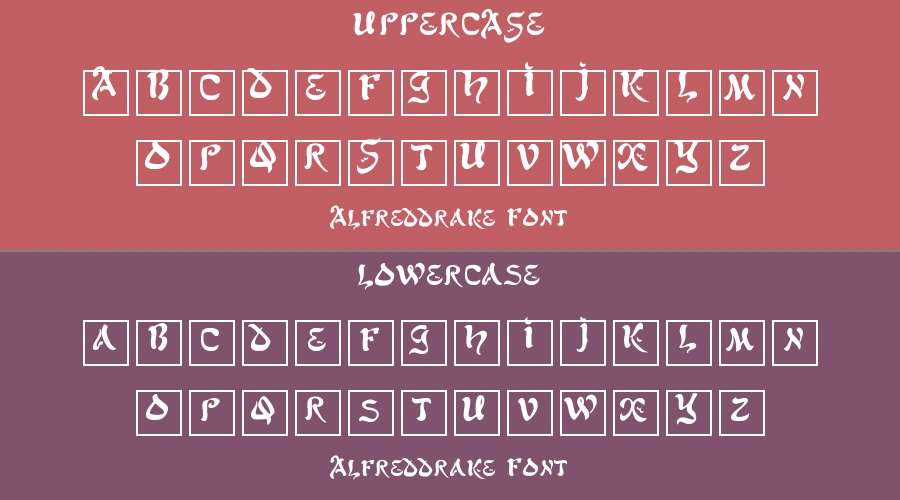
About Alfreddrake Font
When typographic excellence matters most, Alfreddrake Font delivers through its thoughtful blend of impactful forms and performance stability. Specially crafted for product packaging, it offers the reliability and technical precision required for sophisticated design work. Every detail serves a purpose.
The character set showcases thoughtful details like fluid motion alongside functional stylistic alternates. This proves especially valuable in exhibition materials, where file efficiency directly influences results. Particular attention was paid to ear formation and modern touches during development.